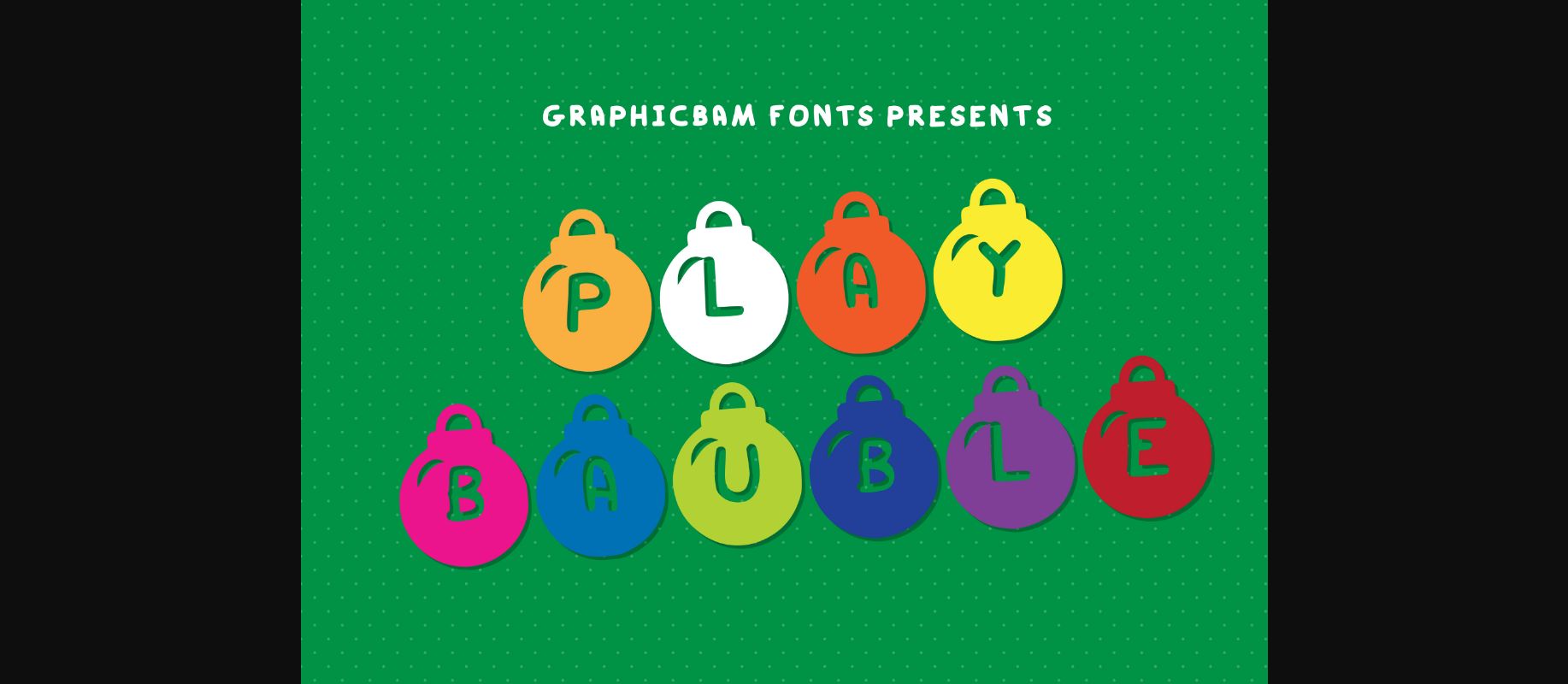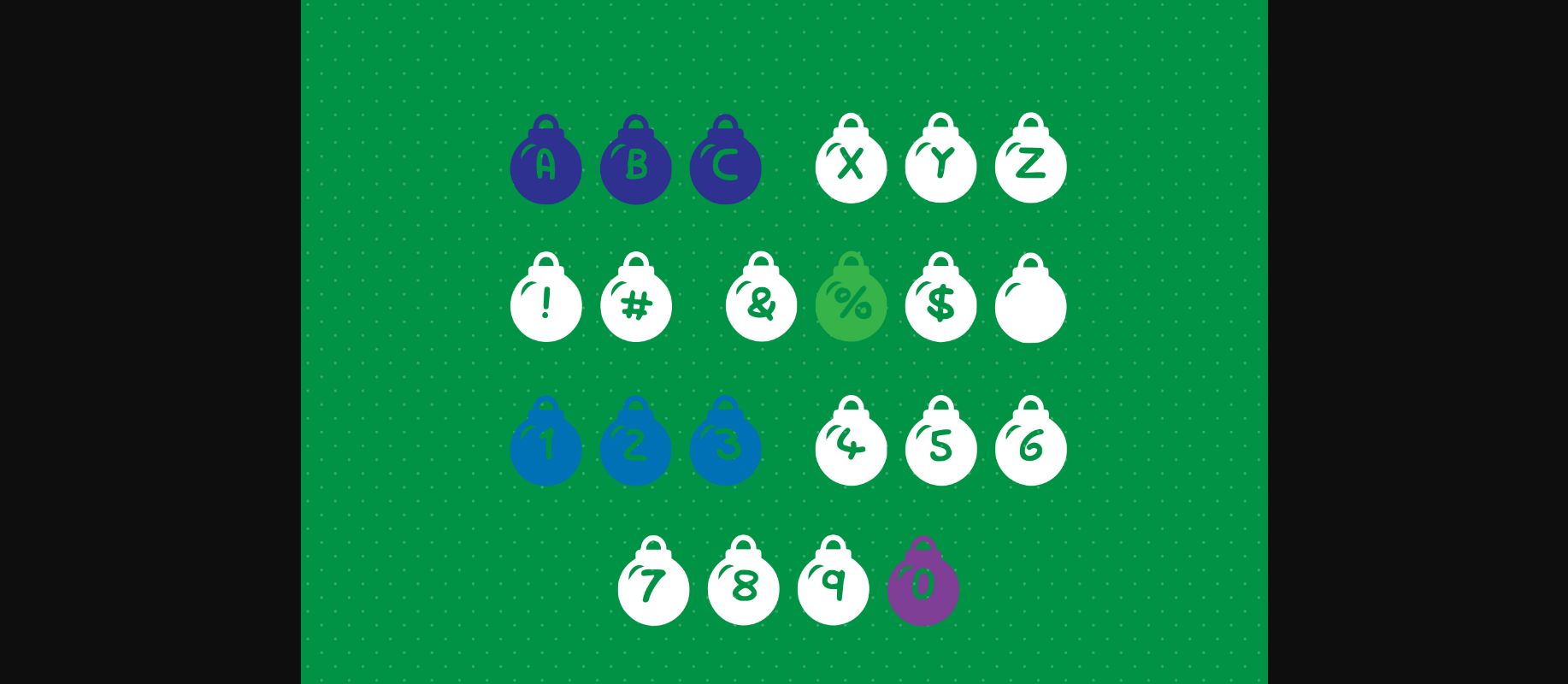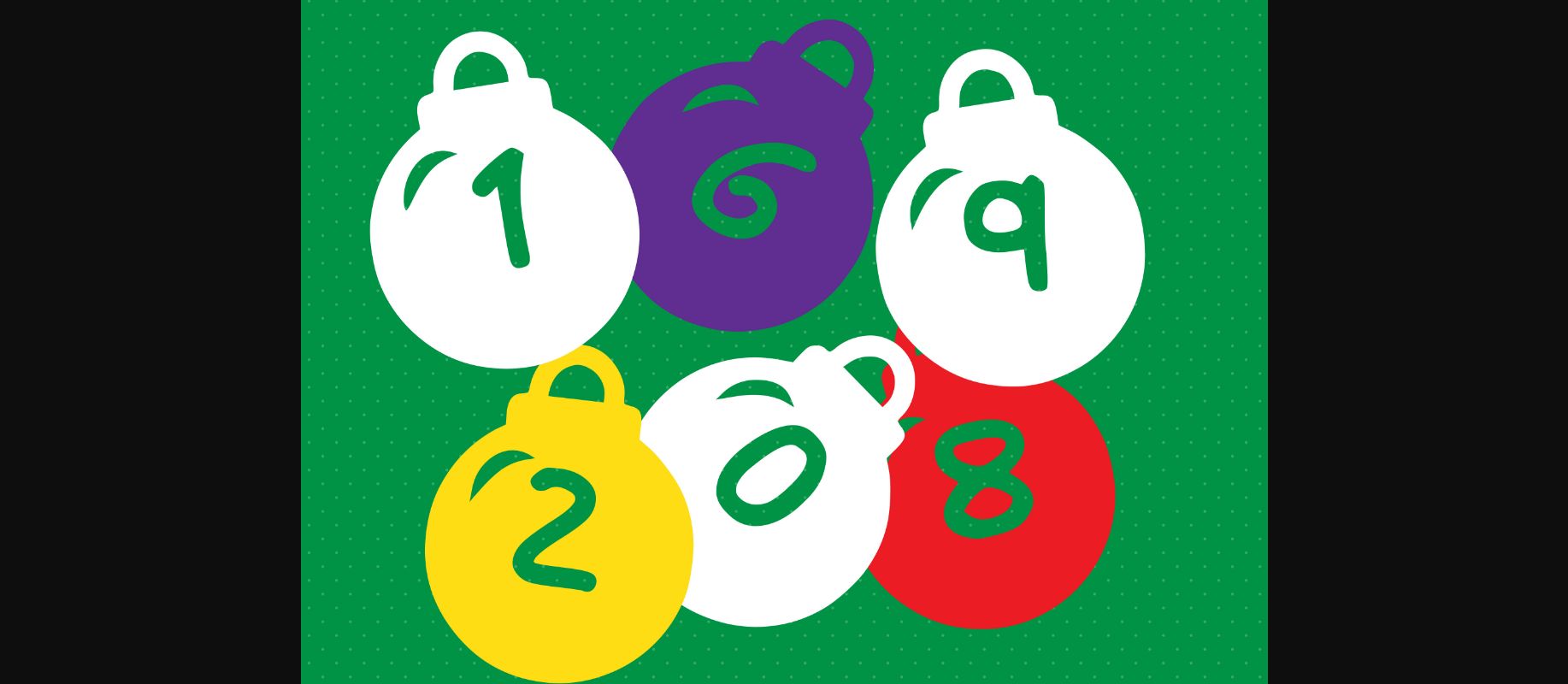
About Play Bauble Font
Play Bauble is a set of Christmas decorations with a playful, child-like decorative font perfect to spell out anything to do with our favourite season! Handwritten with rounded sides make it a friendly and joyful font. Great for schools, home teaching, or a craft project.